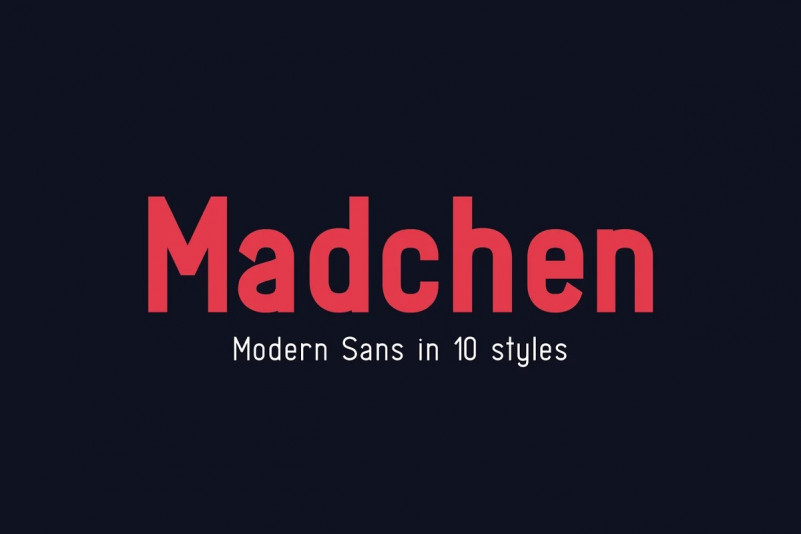
Madchen Sans Serif Font
It’s a geometric typeface family with a semi-formal touch, it contains 10 variants, from the Thin to Black and Italic Thin to Black versions. Madchen is great for screen, editorial, publishing, logos, advertising, branding and corporate identities. It support a wide range of languages including Extended Latin.